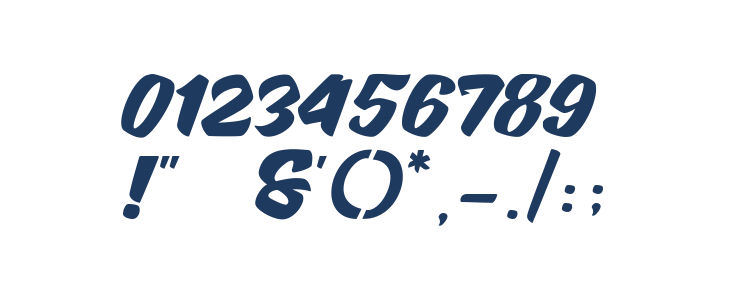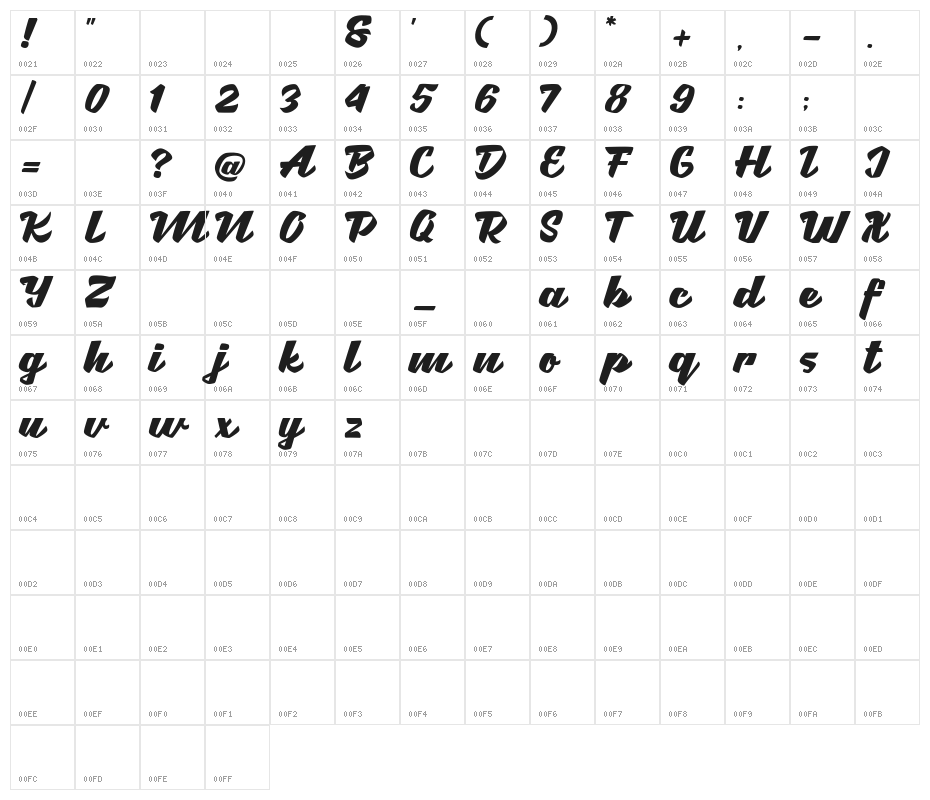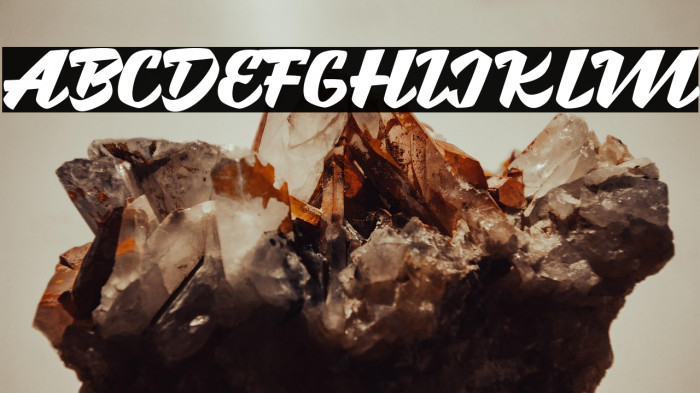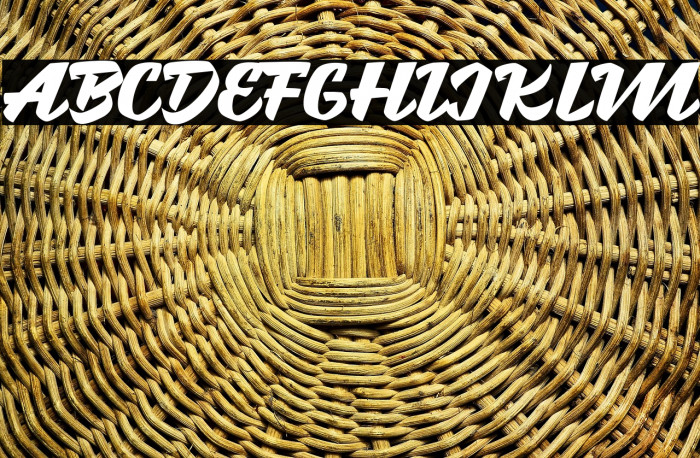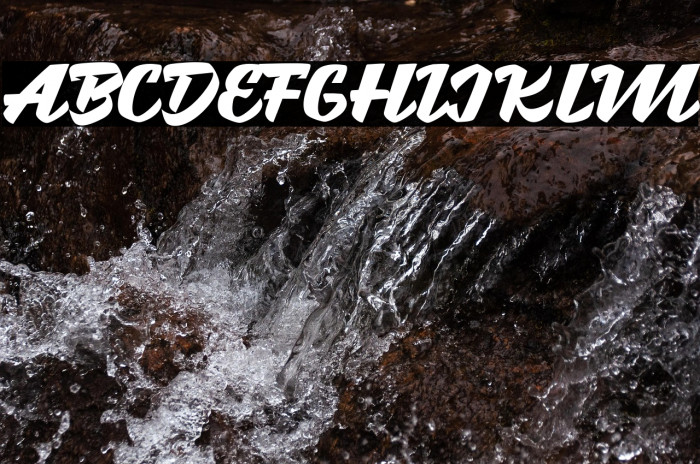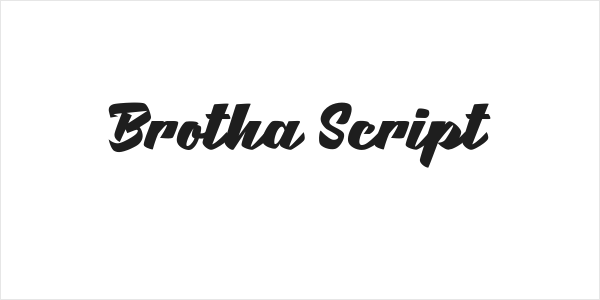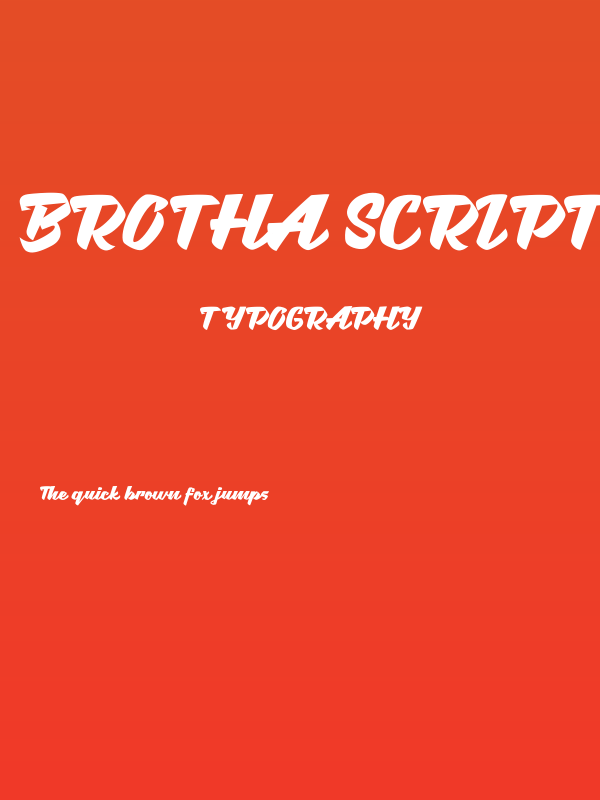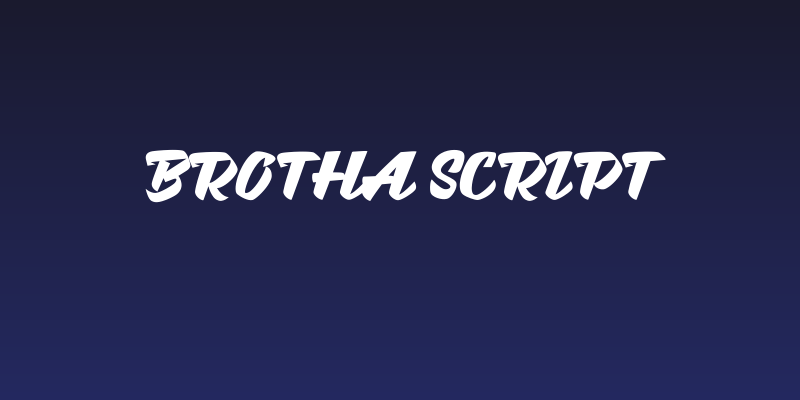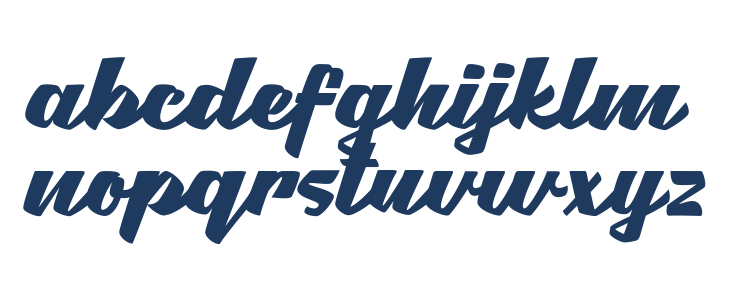
Brotha Script Font
Brotha Script Description
This font features a bold and dynamic script style, characterized by its flowing, cursive letterforms that convey a sense of movement and energy. The uppercase letters are particularly striking, with a strong slant and thick strokes that give them a commanding presence. The lowercase letters maintain the same energetic style, with smooth connections between characters that enhance the font's fluidity. The numerals are equally bold, ensuring they stand out in any design. Special characters are crafted with the same attention to detail, making them a seamless part of the overall aesthetic. This font's boldness and script style make it ideal for projects that require a touch of elegance and flair.
| Use Case | Logos, Headlines, Invitations |
| Proposed Projects | Ideal for branding, invitations, signage, and any project that requires a touch of elegance and flair. |